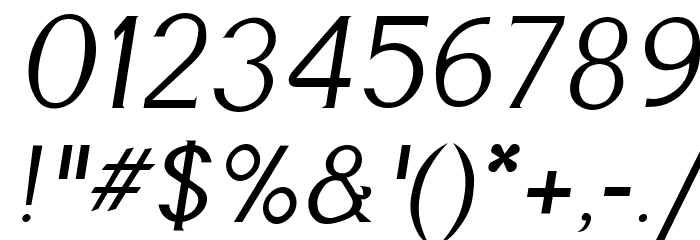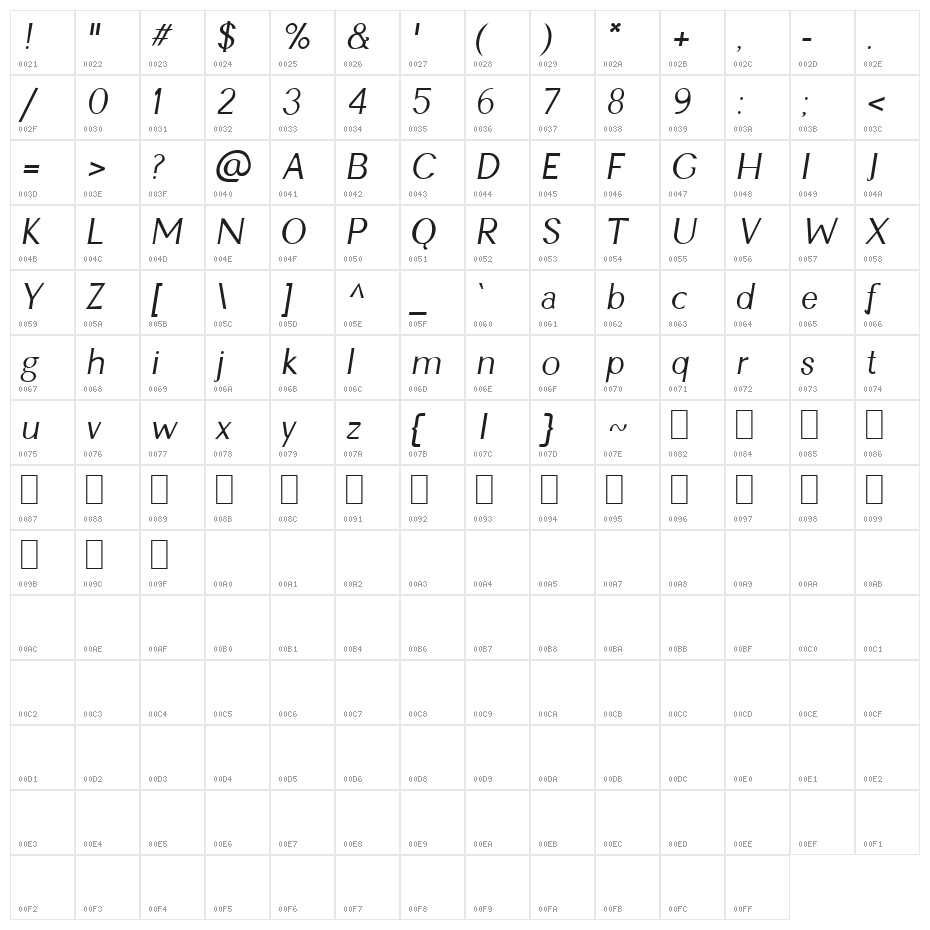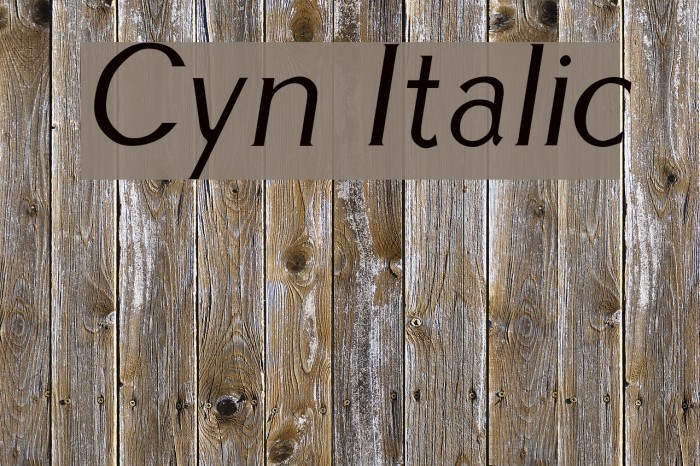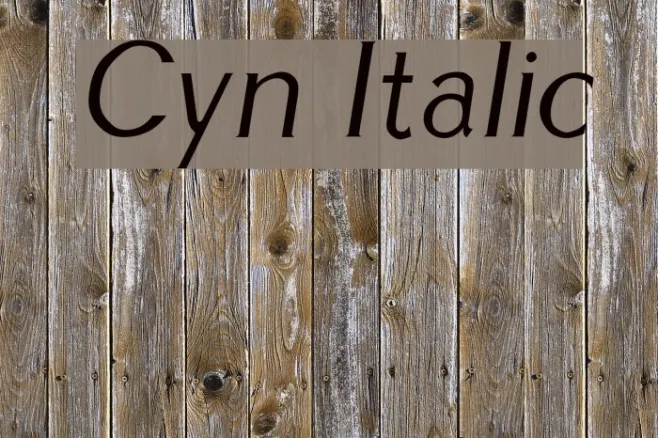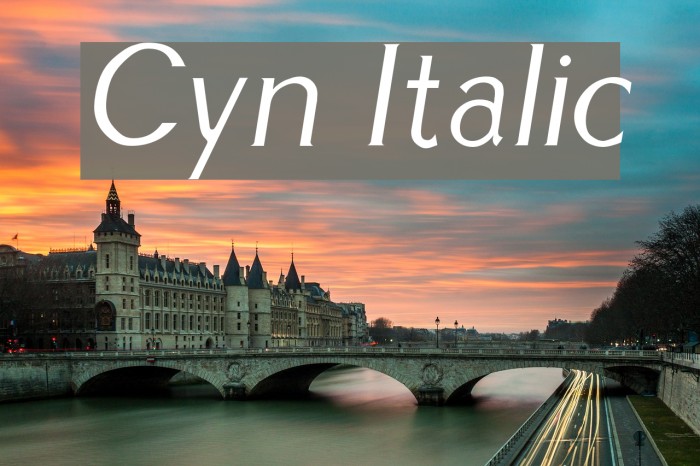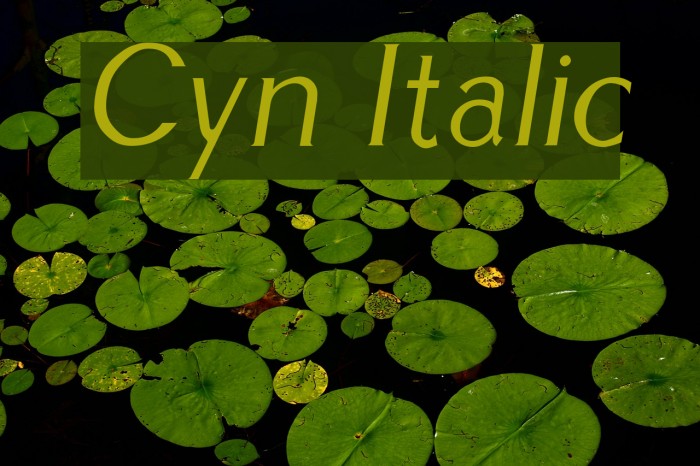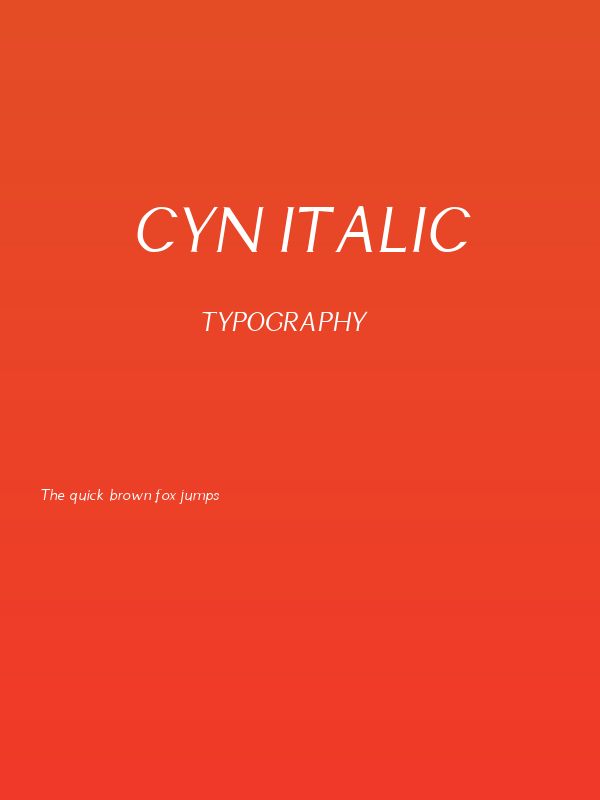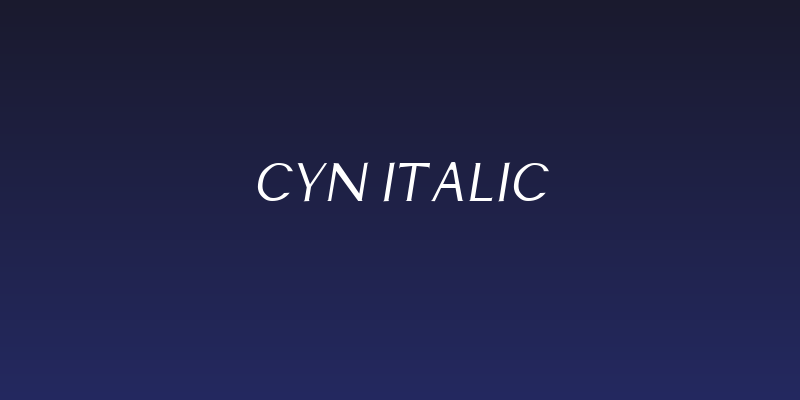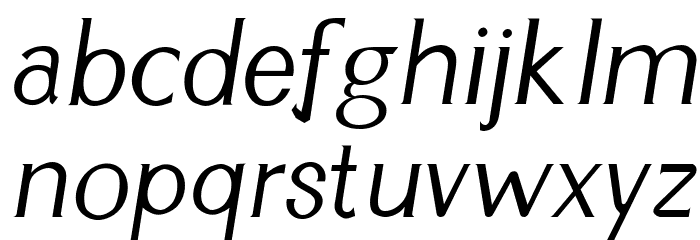
Cyn Italic Font
Cyn Italic Description
This font features a sleek and elegant italic style, characterized by its smooth curves and slightly slanted letters. The uppercase letters are tall and graceful, while the lowercase letters maintain a consistent flow, enhancing readability. The numerals are well-proportioned, complementing the overall aesthetic. Special characters are designed with precision, ensuring they blend seamlessly with the alphabet. This font's refined appearance makes it suitable for a variety of design applications.
| Proposed Projects | Ideal for use in fashion magazines, elegant invitations, branding for luxury products, and sophisticated website headers. |